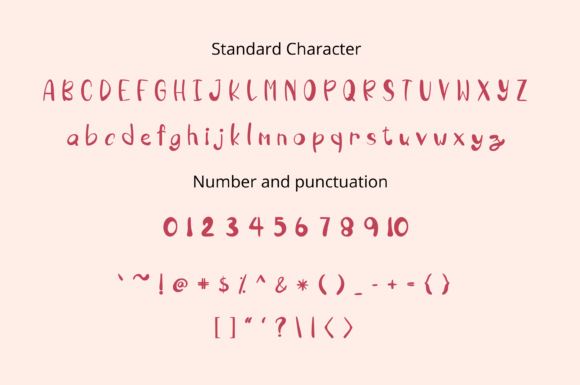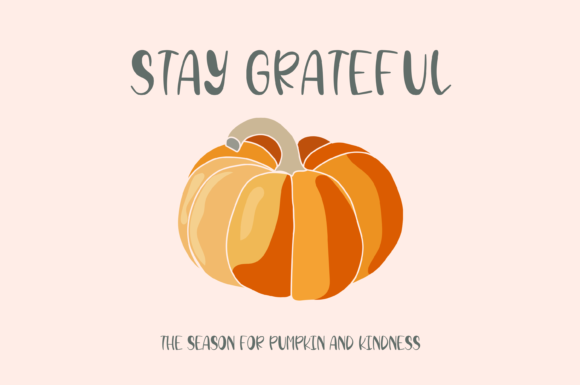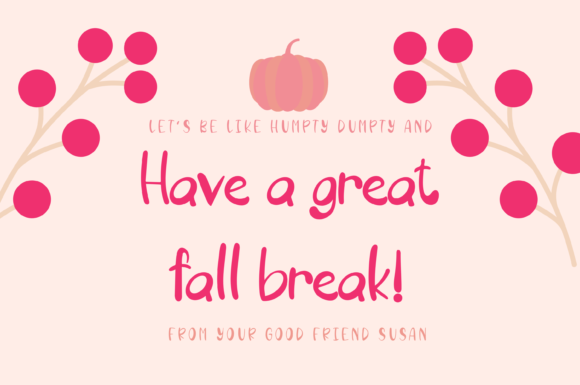
Introduction to Pumpkin Tart Font
Pumpkin Tart is a whimsical and clean handwritten font.
Why Choose Pumpkin Tart Font?
Pumpkin Tart Font offers exceptional quality and versatility, making it a valuable addition to your design toolkit. Whether you’re creating for personal projects or commercial use, Pumpkin Tart Font delivers professional results.